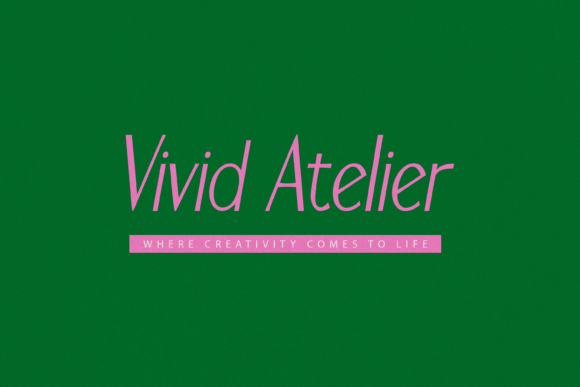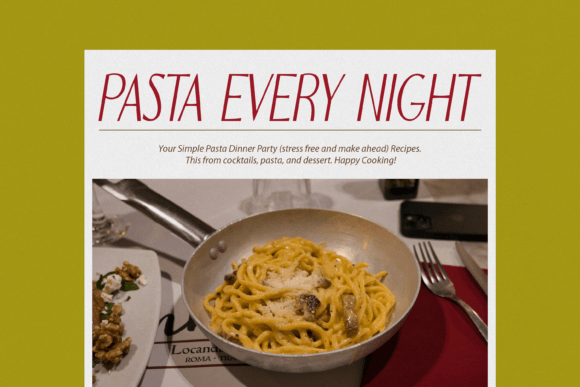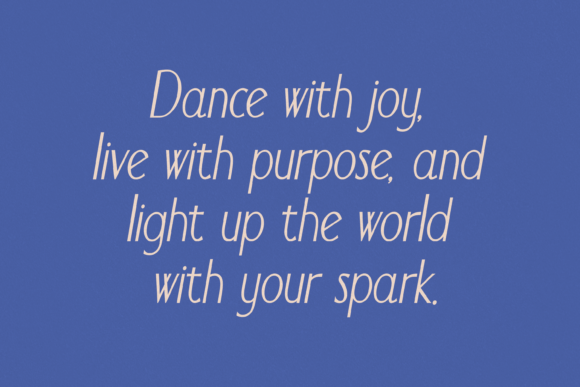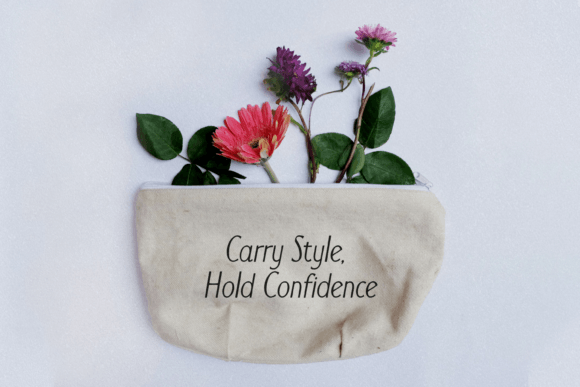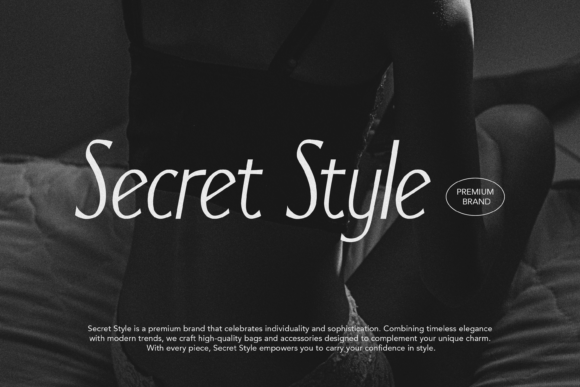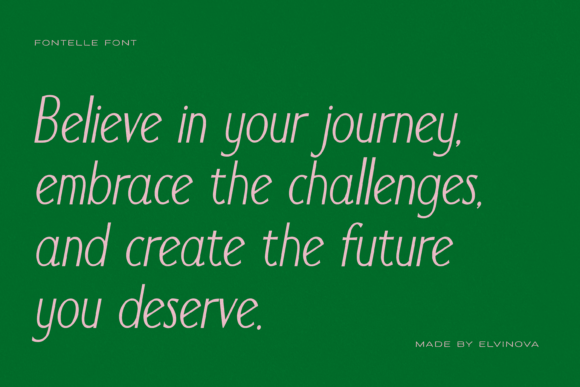
Introduction to Fontelle Font
Fontelle is a modern sans-serif font with an italic style.
Perfect for everyday use, itโs clean, versatile, and adds a simple touch of elegance to any project .
Key Features of Fontelle Font
Fontelle Font offers exceptional quality and versatility, making it a valuable addition to your design toolkit. Whether you’re creating for personal projects or commercial use, Fontelle Font delivers professional results.